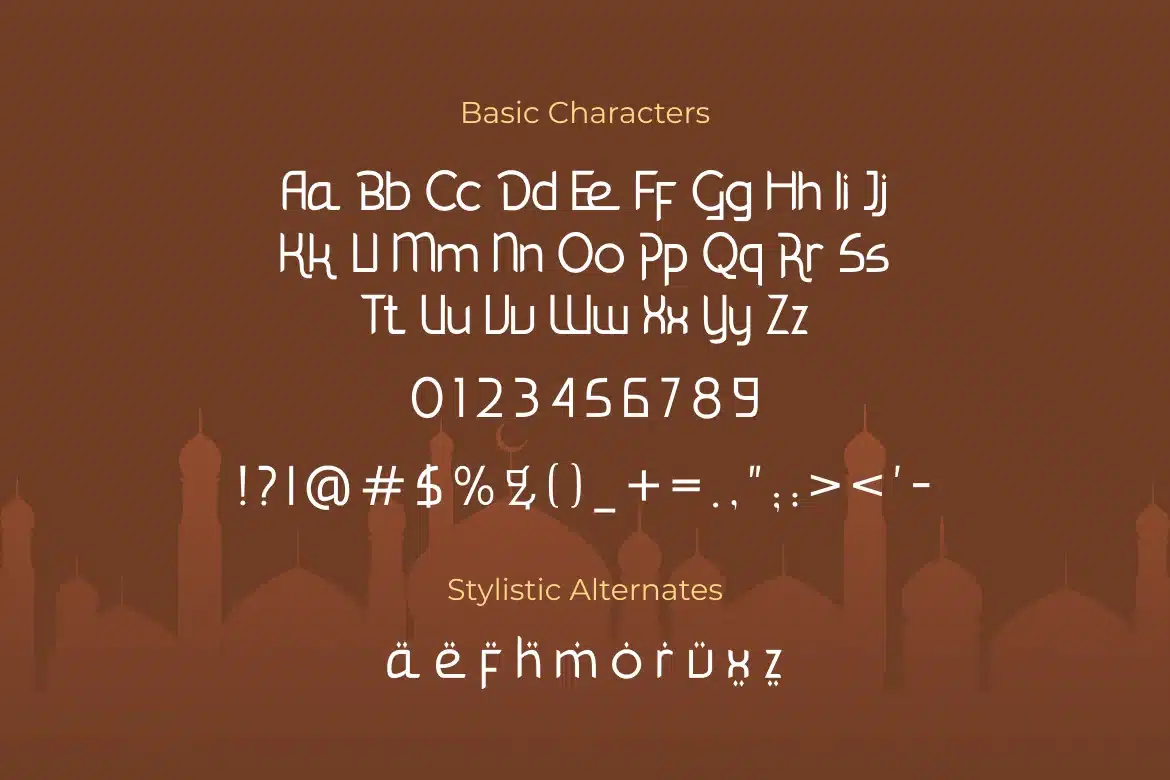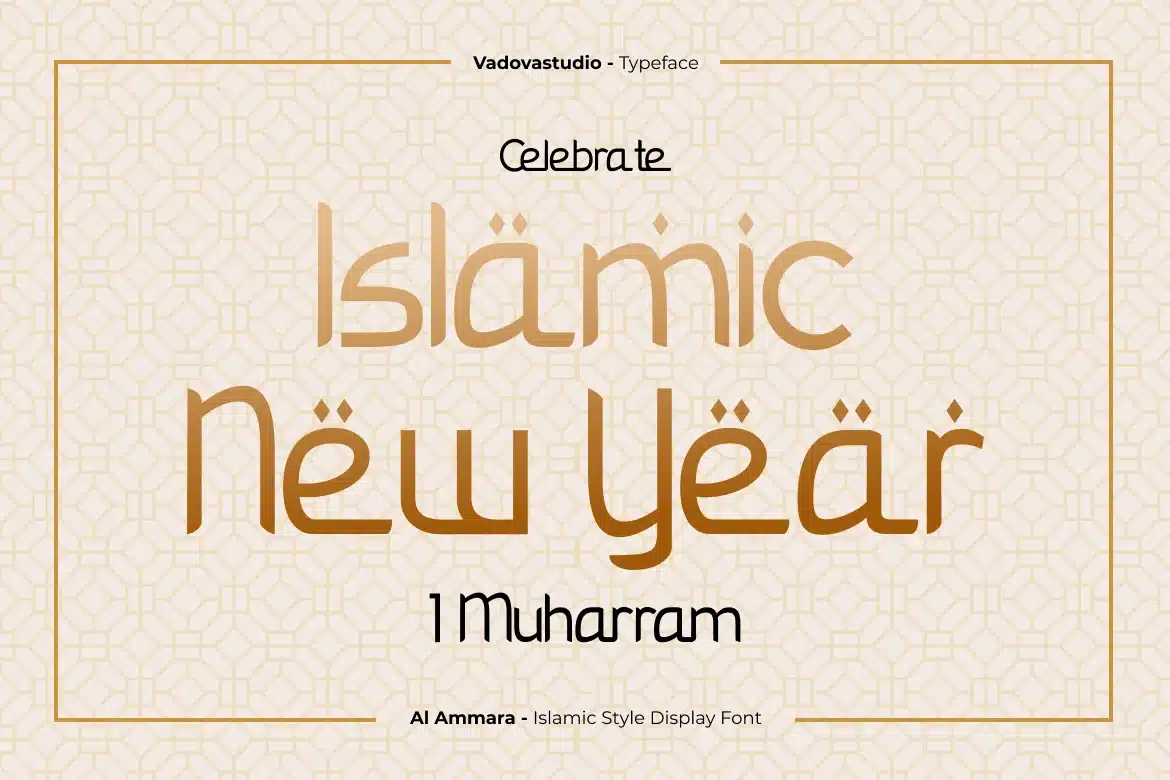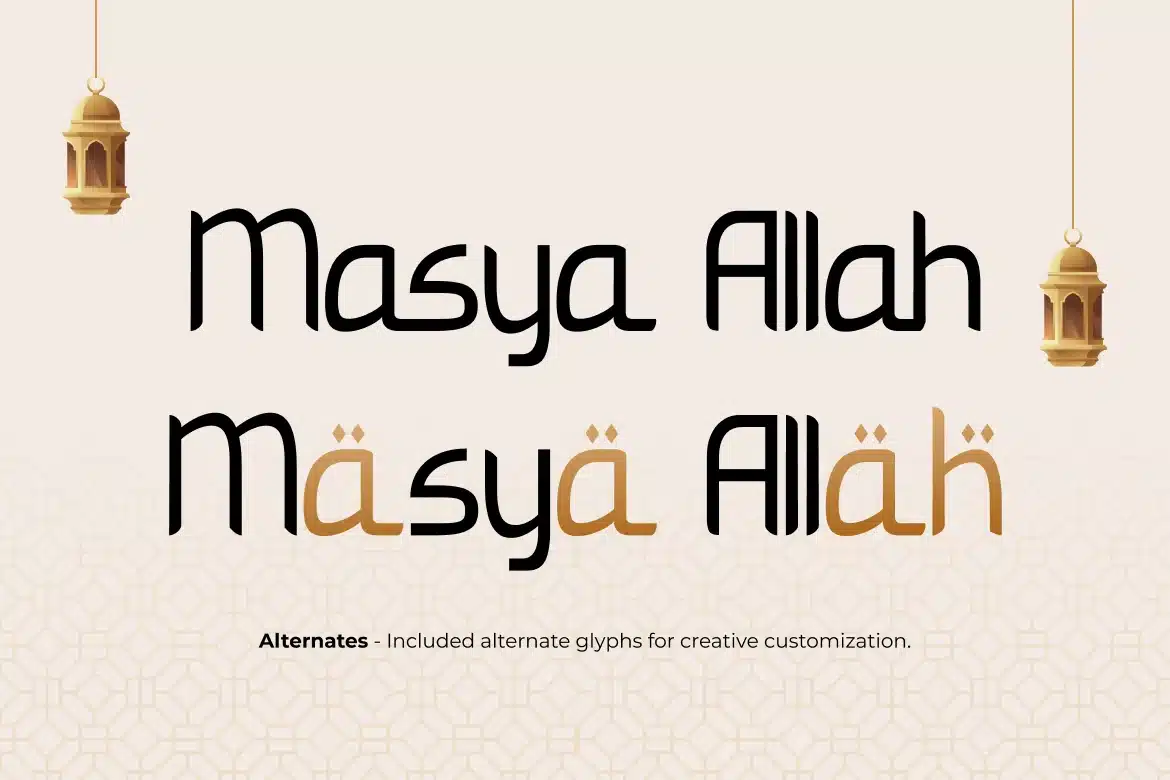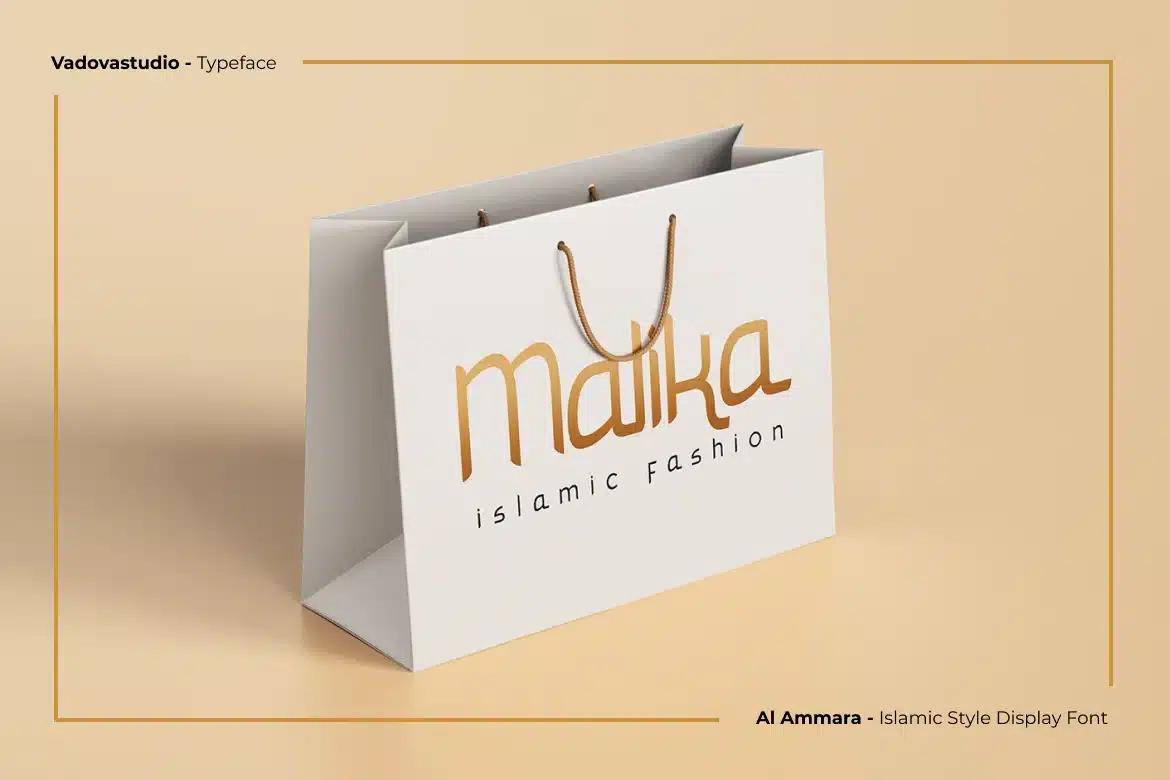
Al Ammara Islamic Display Font
Al Ammara is an elegant Islamic display font featuring geometric Arabic-inspired letterforms with clean strokes, rounded structures, and ornamental cultural details. The typeface includes uppercase, lowercase, numerals, punctuation, and stylistic alternates designed for striking headlines, branding, and decorative typography. Crafted with a balance of modern minimalism and Islamic visual heritage, it works beautifully across print and digital applications.
Relevance and Use Cases is perfect for Ramadan campaigns, Eid greeting designs, mosque branding, halal packaging, Islamic event posters, cultural editorial layouts, luxury logo projects, invitation cards, spiritual social media content, and decorative branding that requires elegant Middle Eastern inspired typography.
Main Features
- Uppercase & Lowercase characters
- Numeral & Punctuations